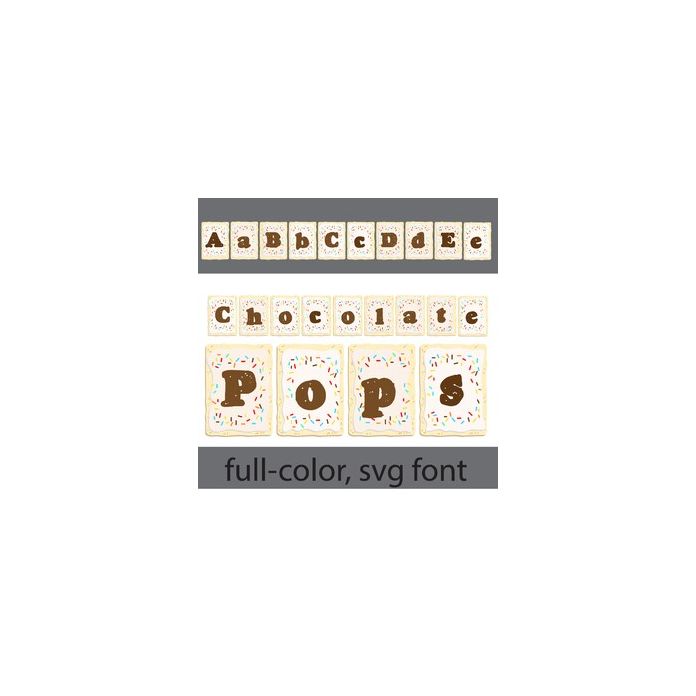
This full-color font looks like chocolate flavored toaster pastries. There is an alt case w/ additional colors you can access through your system or Silhouette's glyph map.